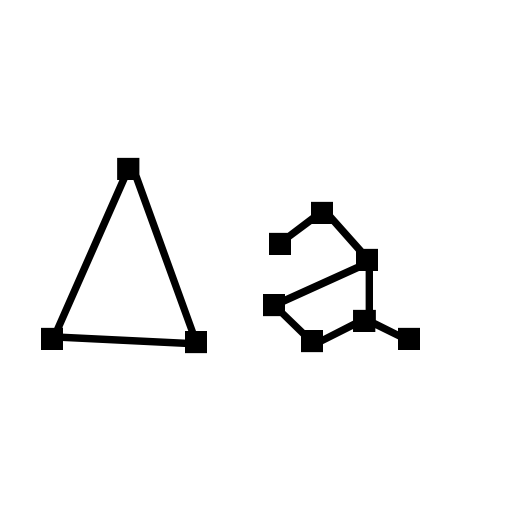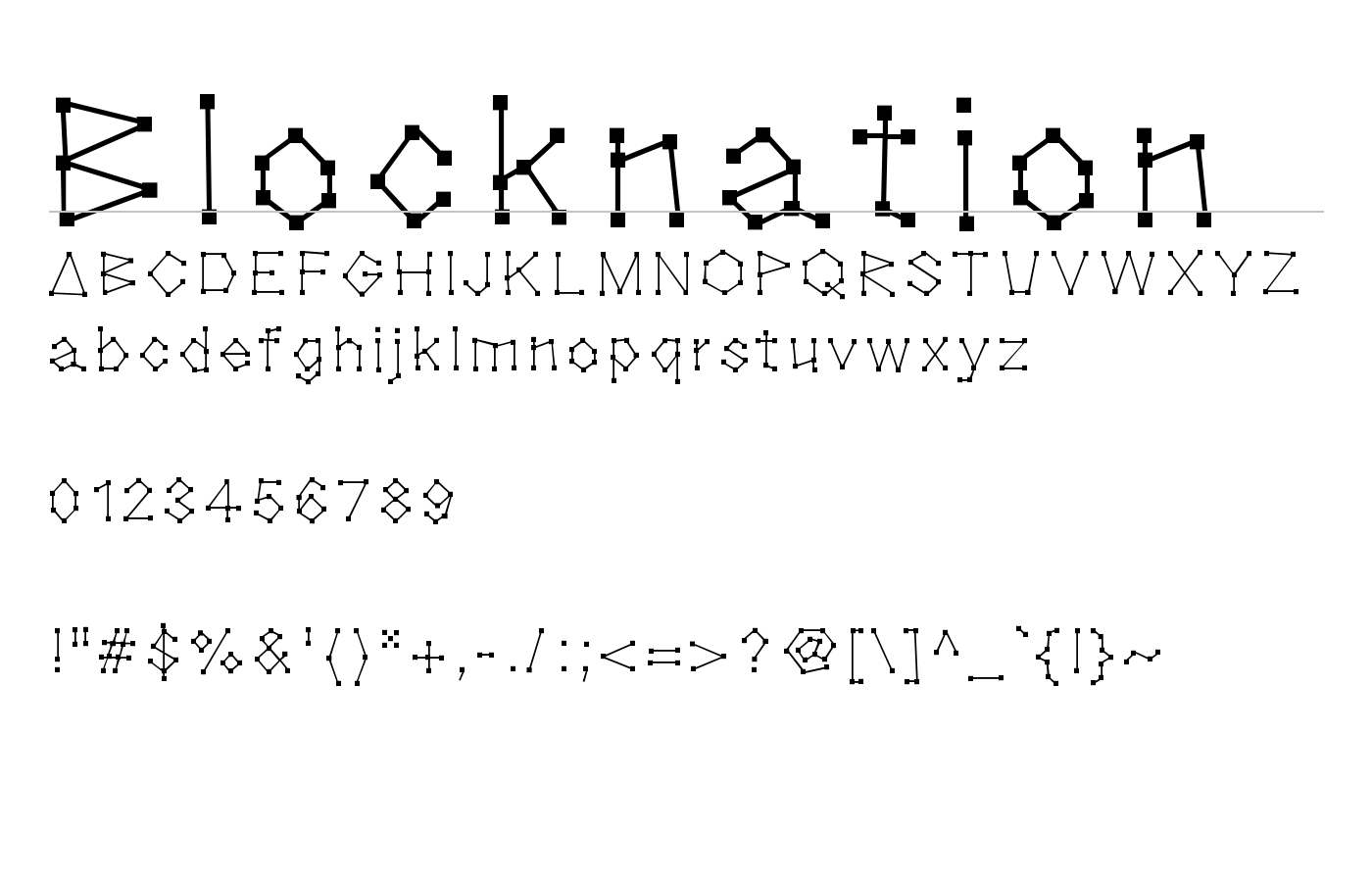
Blocknation is a distinctive, geometric sans serif font characterized by its unique structure of connected blocks and lines, giving it a tech-inspired, futuristic feel. Its light weight, consistent stroke thickness, and open letterforms create an airy, modern aesthetic perfect for digital interfaces, tech branding, or innovative editorial designs. This font works well in creative projects looking to convey a sense of modernity and precision.
Blocknation Font